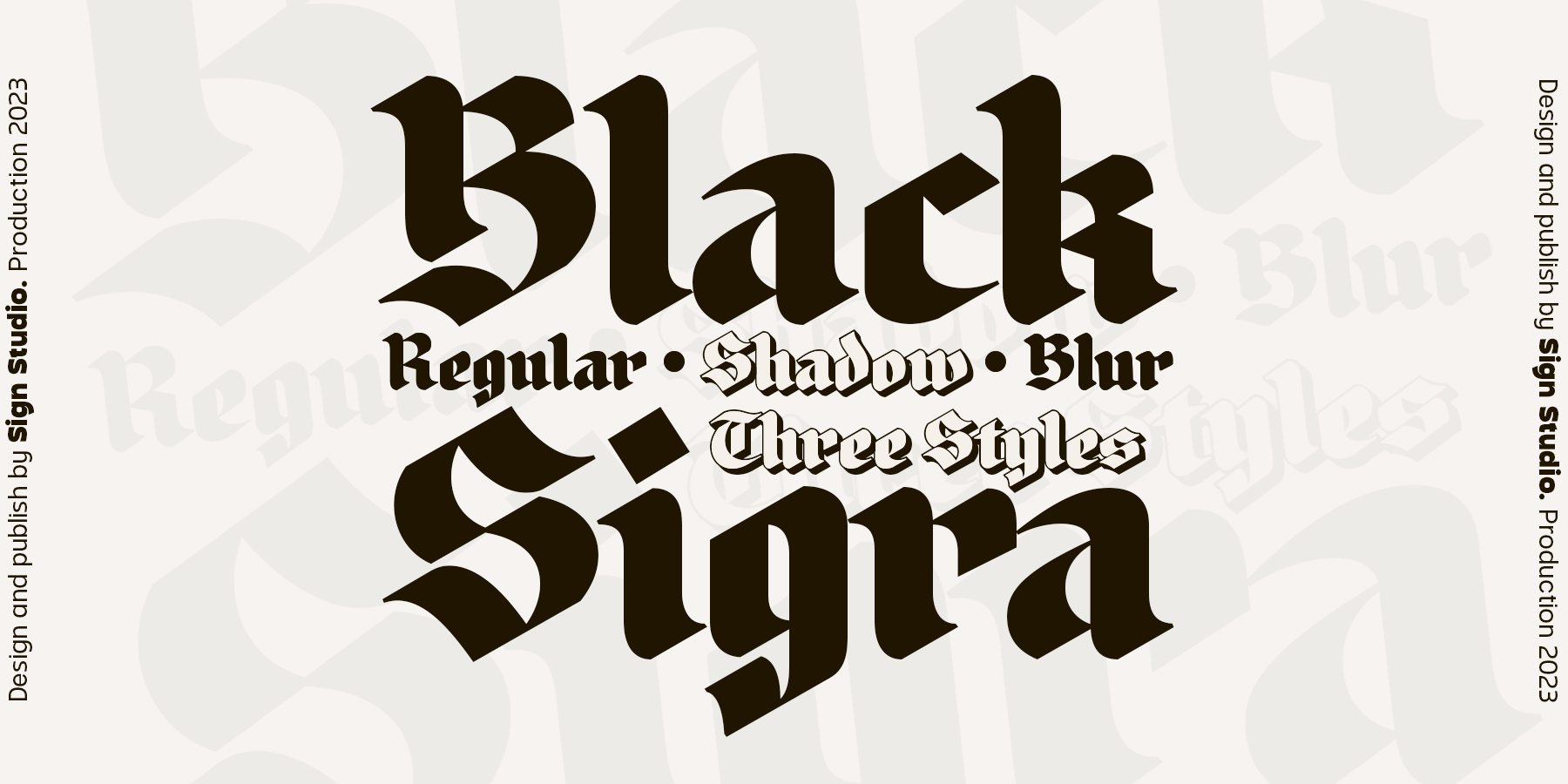
Black Sigra Font is perfect for luxury fashion branding, high-end automotive marketing, premium whiskey labeling, sophisticated men's grooming products, exclusive nightclub signage, upscale steakhouse menus, elite sports team logos, and bold corporate executive presentations.
Black Sigra Font is exciting because it captures the commanding presence and uncompromising sophistication of premium black-tie elegance, translating the powerful confidence of executive authority and the refined intensity of luxury masculinity into typography that embodies strength, exclusivity, and the magnetic appeal of understated power. This typeface brings the confident elegance of boardroom leadership into contemporary design applications, making every message feel authoritative and distinctively premium.
The Black Sigra Font family includes Regular, Light, Medium, Bold, and Ultra Black variations, along with executive alternates and luxury ornaments. Each family member maintains the distinctive premium black aesthetic while providing comprehensive options for creating powerful and sophisticated typographic compositions that celebrate masculine elegance, executive authority, and the refined confidence of luxury lifestyle brands targeting discerning male consumers.
Black Sigra Font distinguishes itself through its exceptional ability to convey both masculine strength and sophisticated refinement while maintaining the understated elegance expected in premium luxury communications. The font's bold letterforms and authoritative character create an immediate impression of executive confidence and exclusive positioning, making it particularly effective for luxury brands, premium services, and high-end products seeking to communicate with successful, sophisticated male demographics.
The luxury lifestyle industry applications of Black Sigra Font make it exceptionally valuable for brands targeting affluent male consumers and executive markets. Premium menswear companies, luxury automotive brands, high-end spirits manufacturers, and exclusive membership organizations frequently choose this font to establish their sophisticated masculine identity while communicating their commitment to excellence, exclusivity, and the refined tastes of successful professionals.
Brand professionals recognize Black Sigra Font Free Download for its powerful market positioning and ability to convey premium masculine appeal. The font's authoritative character and luxury associations make it particularly suitable for executive communications, premium product packaging, and high-end marketing campaigns requiring typography that reinforces masculine sophistication while appealing to consumers seeking distinctive quality and exclusive experiences.
The executive authority associations of Black Sigra Font extend beyond luxury goods to encompass broader themes of leadership, success, and professional achievement. Its commanding character and sophisticated presence naturally complement business consulting firms, executive coaching services, leadership development programs, and professional organizations celebrating the qualities of successful leadership and executive excellence.
Contemporary luxury branding increasingly values typography that can authentically communicate masculine sophistication and executive authority while appealing to diverse successful professionals seeking premium experiences that reflect their achievements and refined tastes. Black Sigra Font delivers this sophisticated balance through its commanding presence and understated luxury appeal, making it suitable for both traditional masculine luxury brands and contemporary premium services.
The executive licensing of Black Sigra Font supports creative professionals across luxury lifestyle, executive services, and premium masculine brands. Whether designing for a luxury watch company, executive consulting firm, or premium spirits brand, this font family provides the typographic foundation necessary to create compelling visual communications that celebrate masculine sophistication, honor executive achievement, and capture the confident elegance that defines truly premium lifestyle experiences for successful professionals.